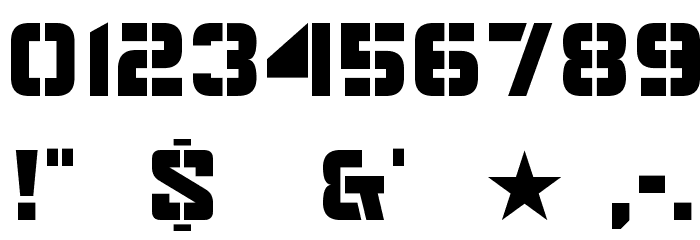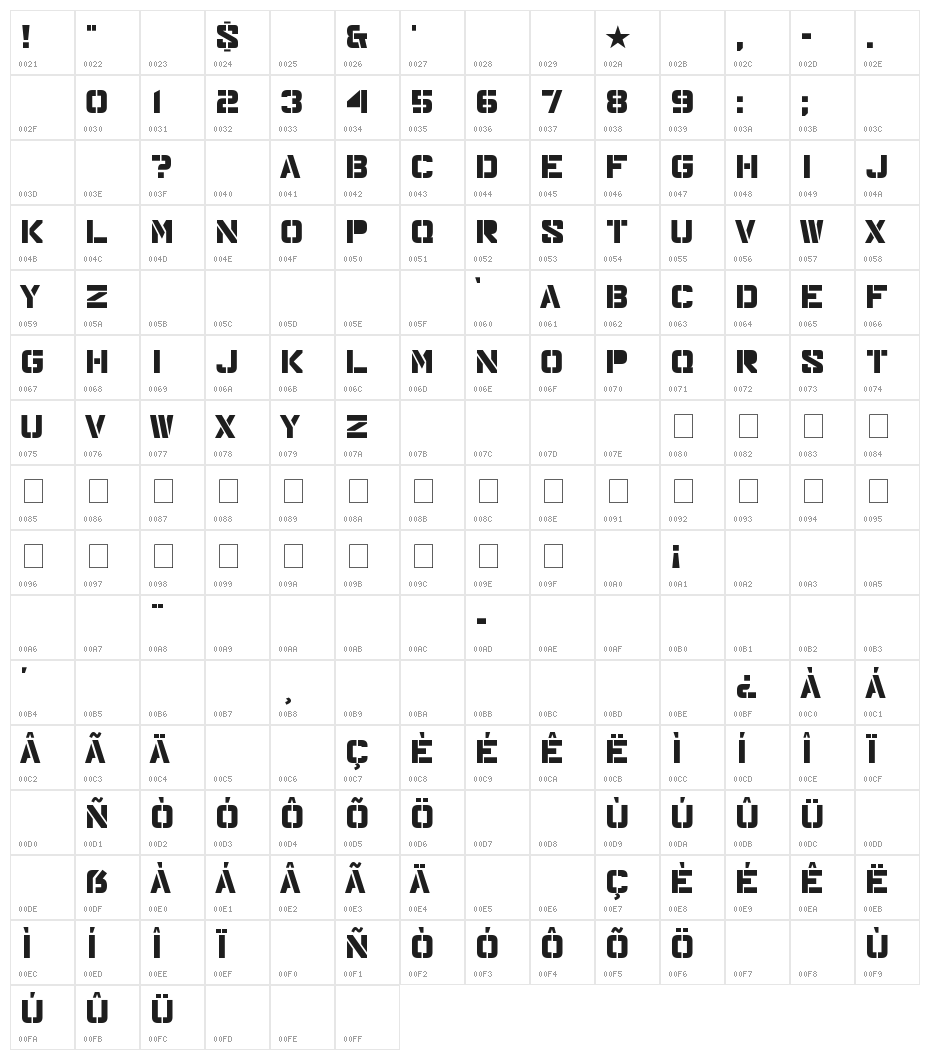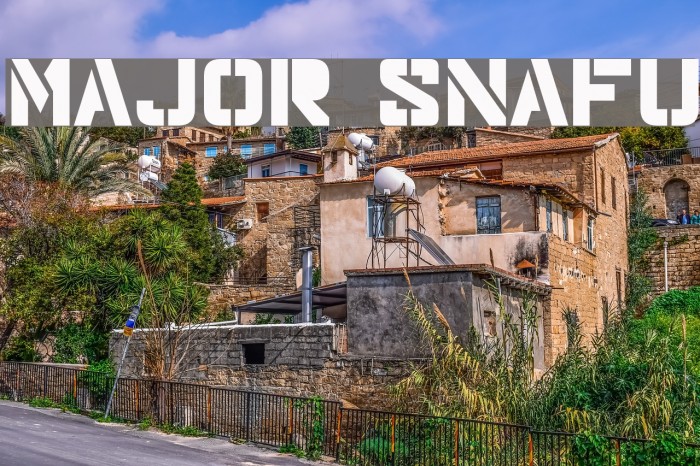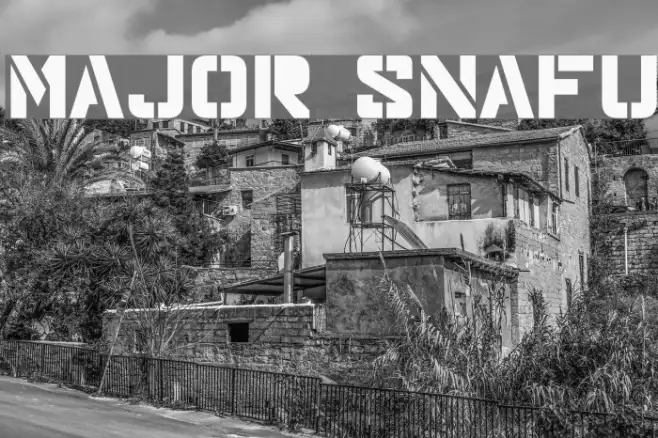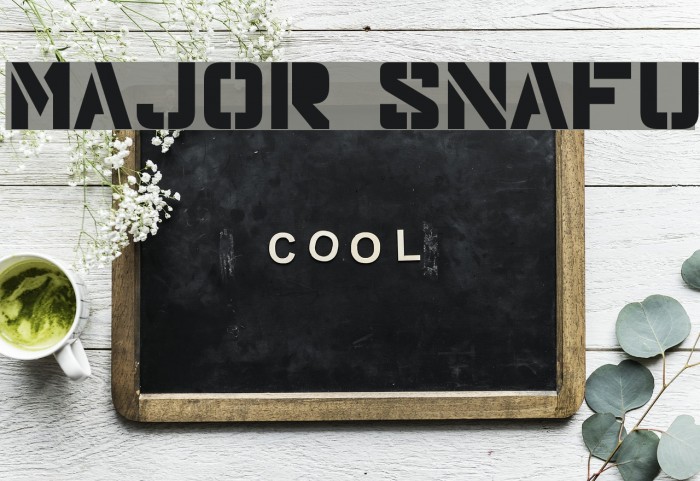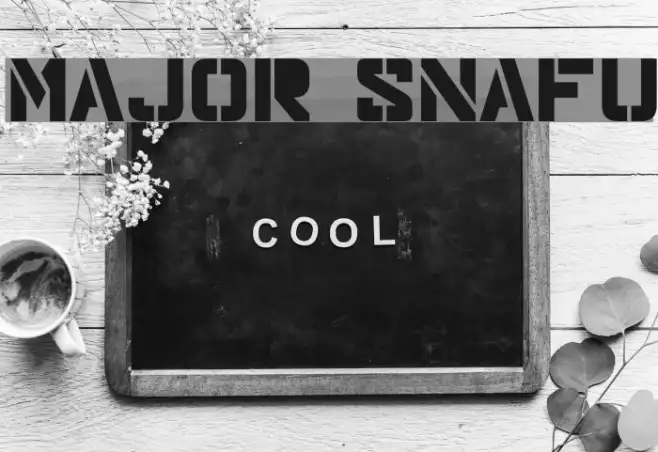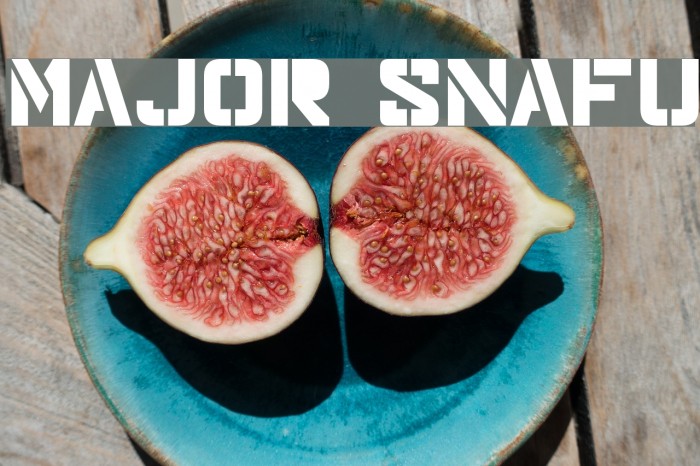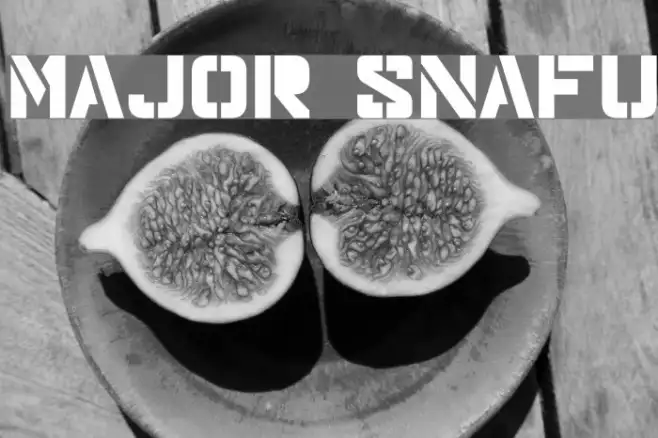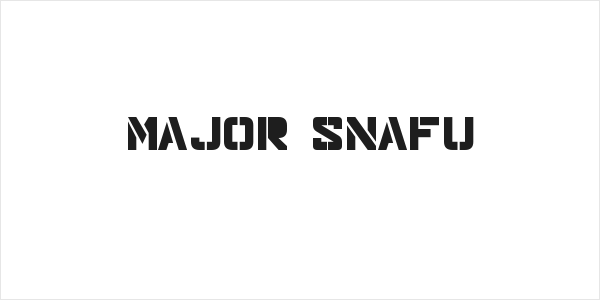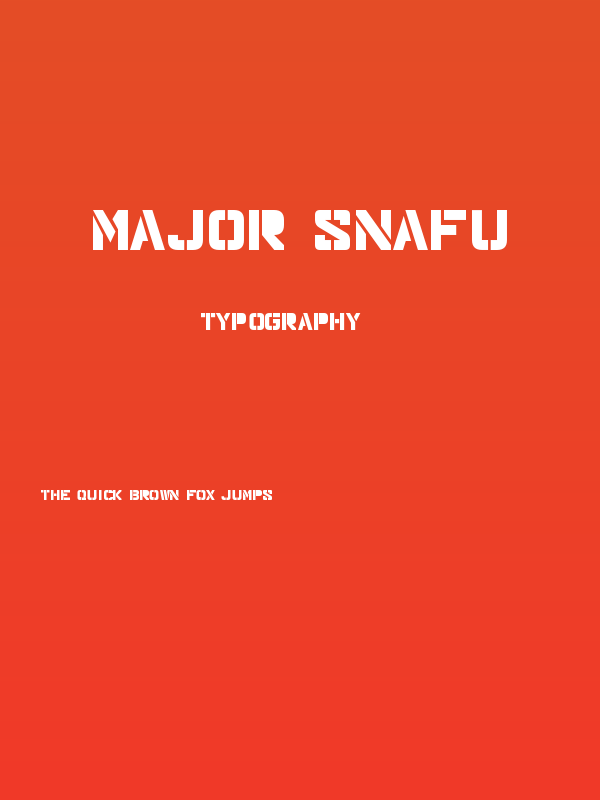
Major Snafu Font
Major Snafu Description
This font features a bold, geometric design with a distinct stencil-like appearance. Each character is constructed with solid, blocky shapes, creating a strong and impactful visual presence. The font's design is reminiscent of military or industrial themes, with its sharp angles and cut-out sections that give it a rugged, utilitarian feel. The uppercase letters are particularly striking, with consistent height and width, while the numbers and special characters maintain the same bold style. This font is ideal for projects that require a strong, authoritative look, such as posters, signage, or branding materials.
| Overall Style | Industrial, Military |
| Proposed Projects | Ideal for posters, signage, branding, and any project needing a strong, authoritative look. |